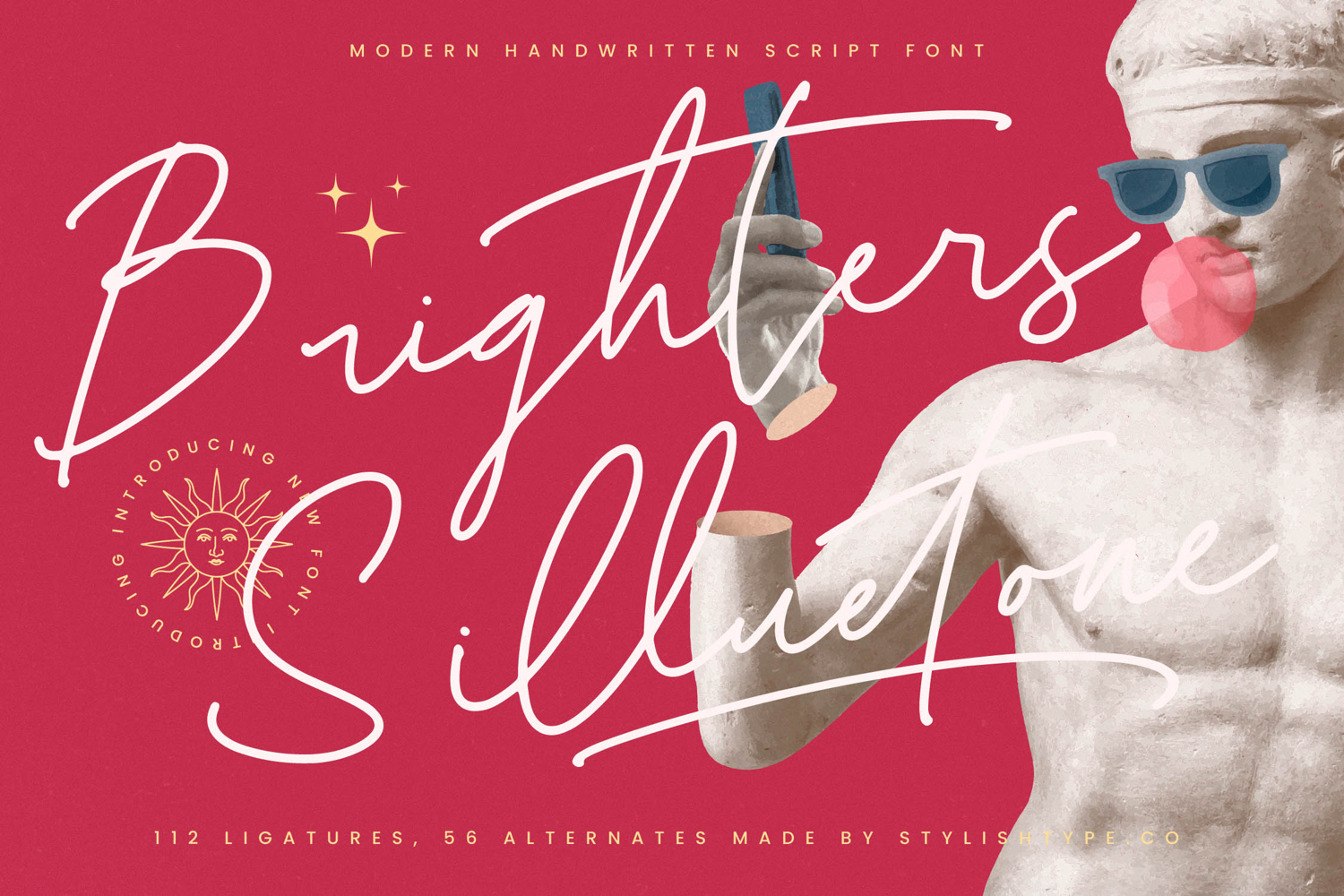
Brighters Silluetone - Handwritten Script Font
Brighters Silluetone - Handwritten Script Font , from Stylishtype.Co , Suitable for any projects such as: logos, branding projects, homeware designs, product packaging, mugs, quotes, posters, shopping bags, t-shirts, book covers, name card, invitation cards, greeting cards, label, photography, watermark, special events, and all your other luxury and beautiful projects that need a Luxury Script taste.